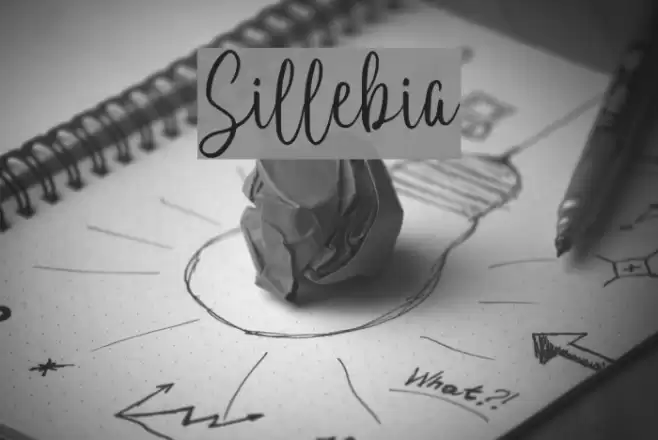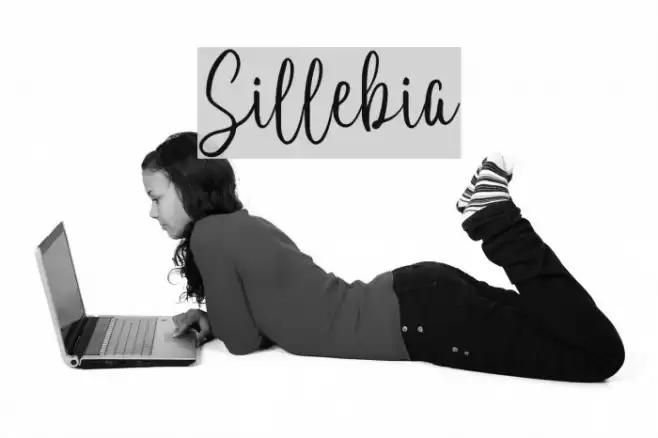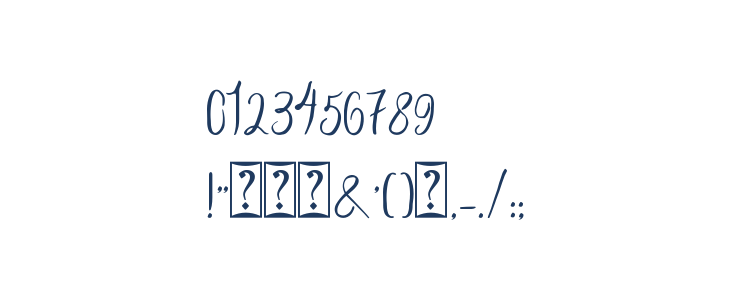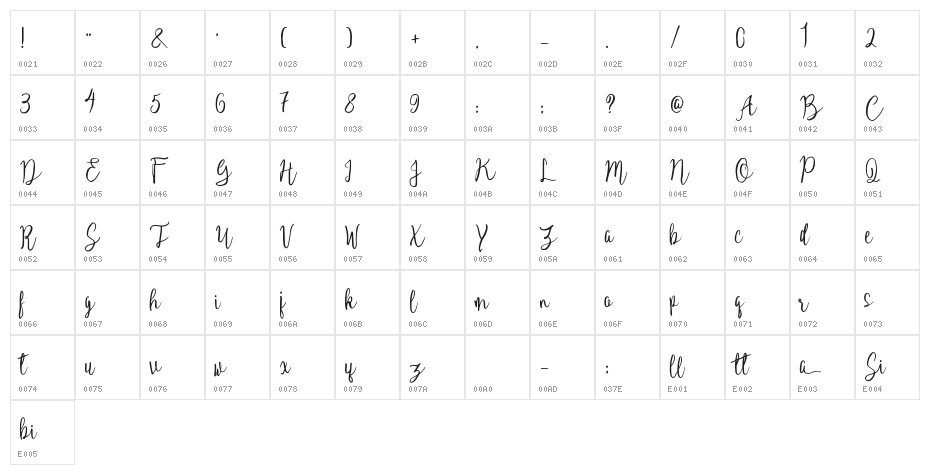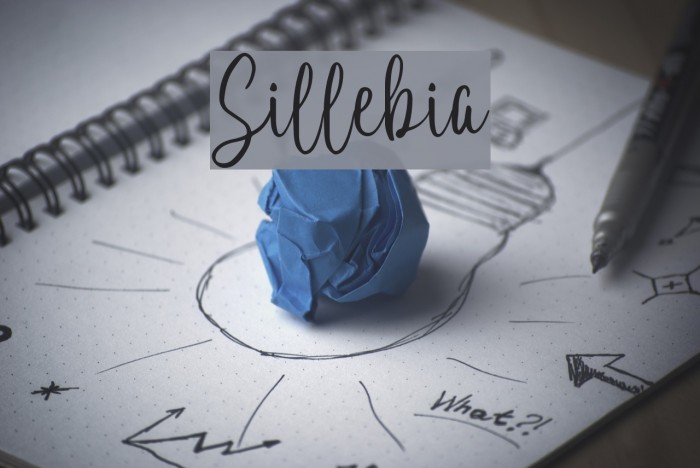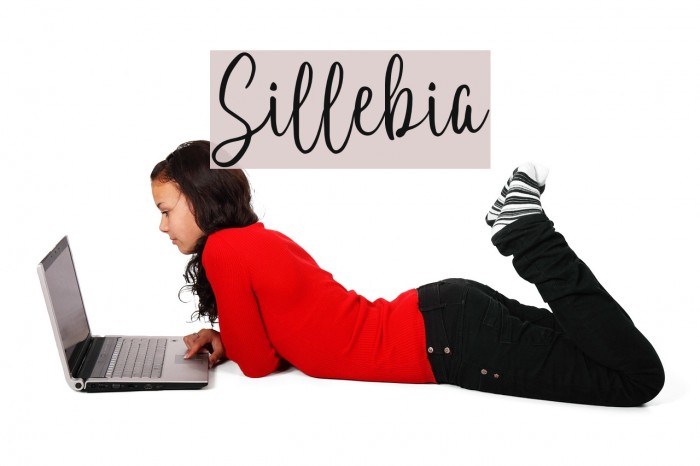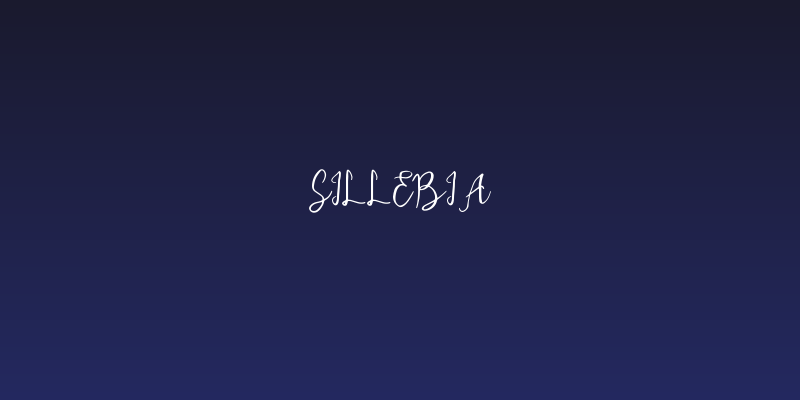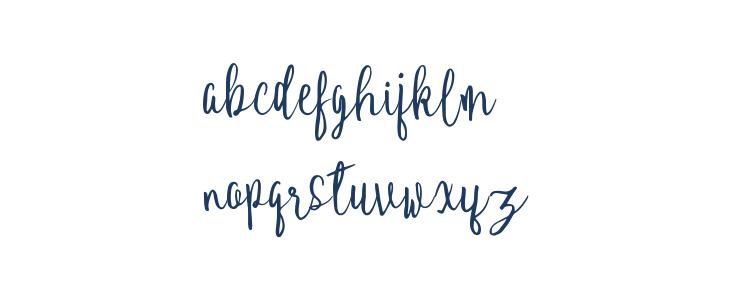
Sillebia Font
Sillebia Description
This font features a flowing, cursive style with a handwritten appearance. The uppercase letters are elegantly crafted with smooth curves and slight slants, giving them a sophisticated yet approachable look. The lowercase letters maintain a consistent style, with some characters having unique loops and flourishes that add to the font's charm. The numerals are clear and legible, matching the overall aesthetic with their rounded forms. Special characters are included, maintaining the same handwritten quality. This font is ideal for projects that require a personal touch, such as invitations, greeting cards, or branding materials.
A cursive, handwritten font with elegant curves and a personal touch from Uncategorized fonts.